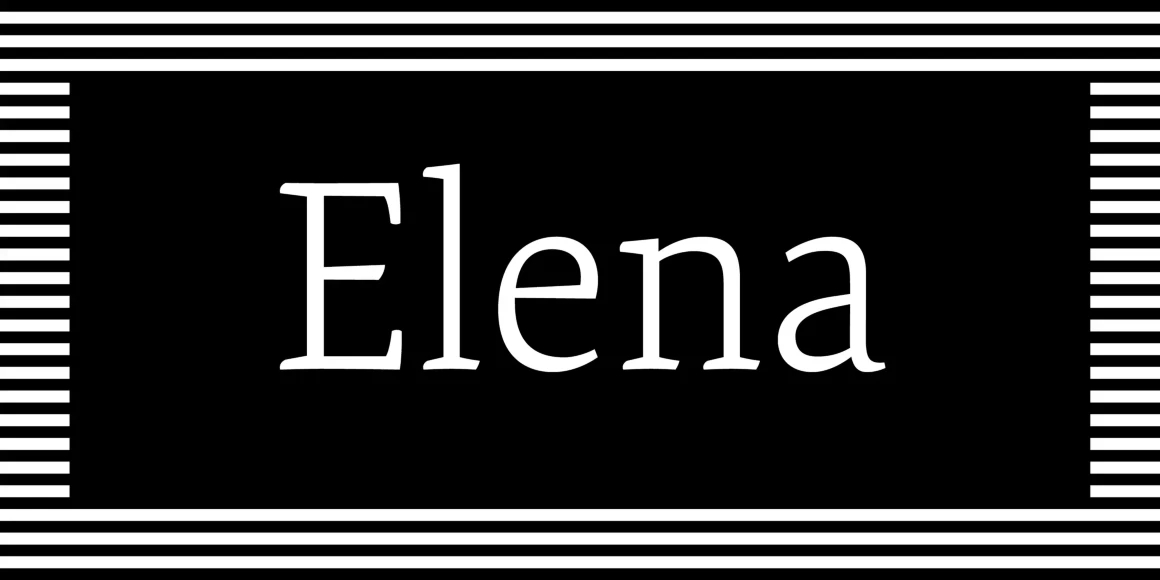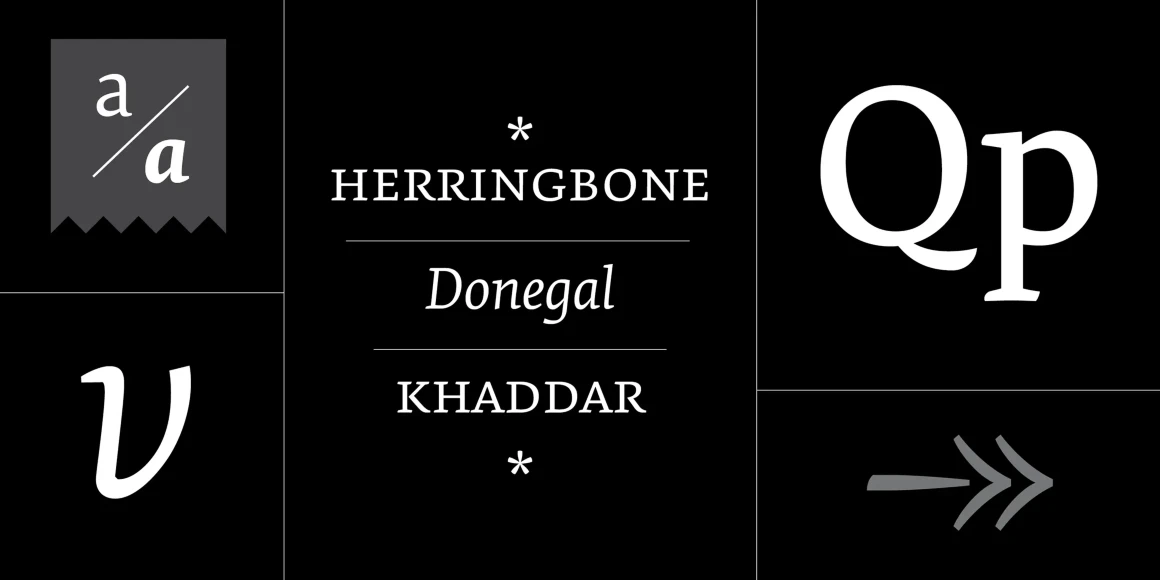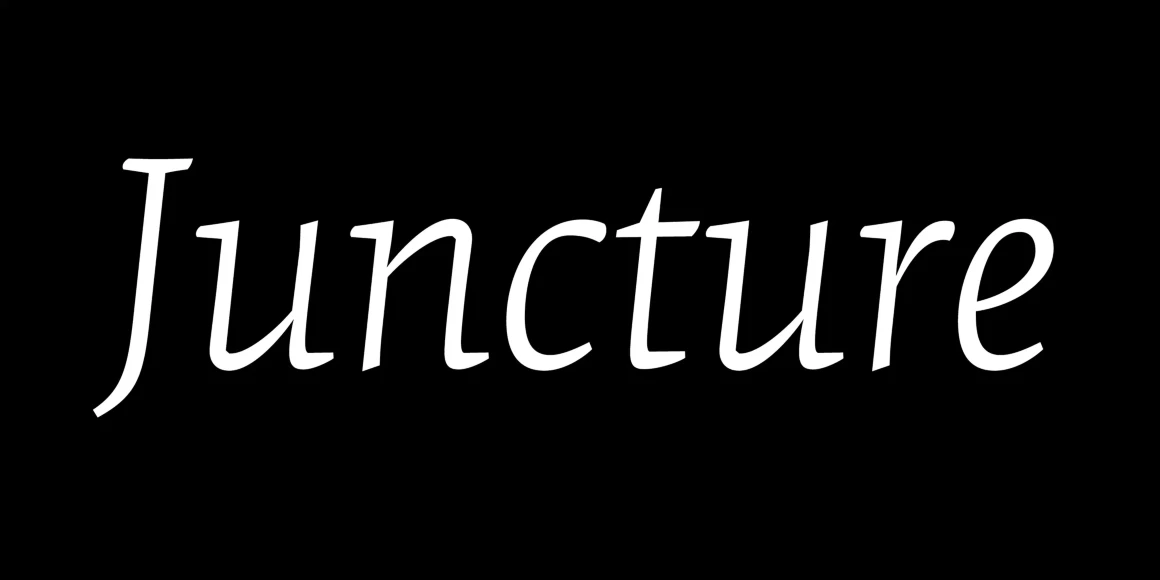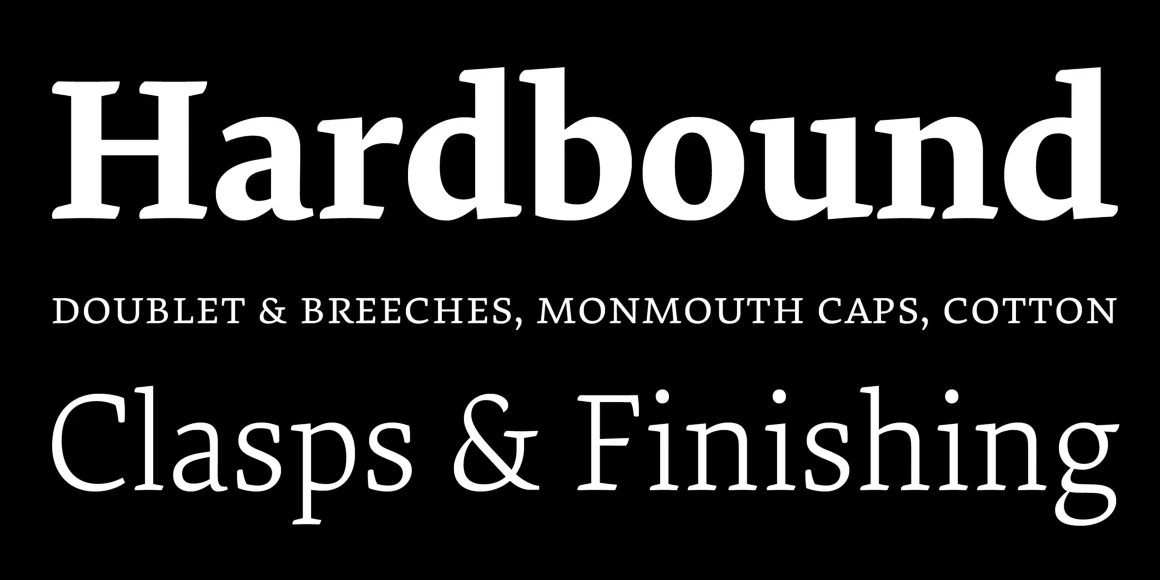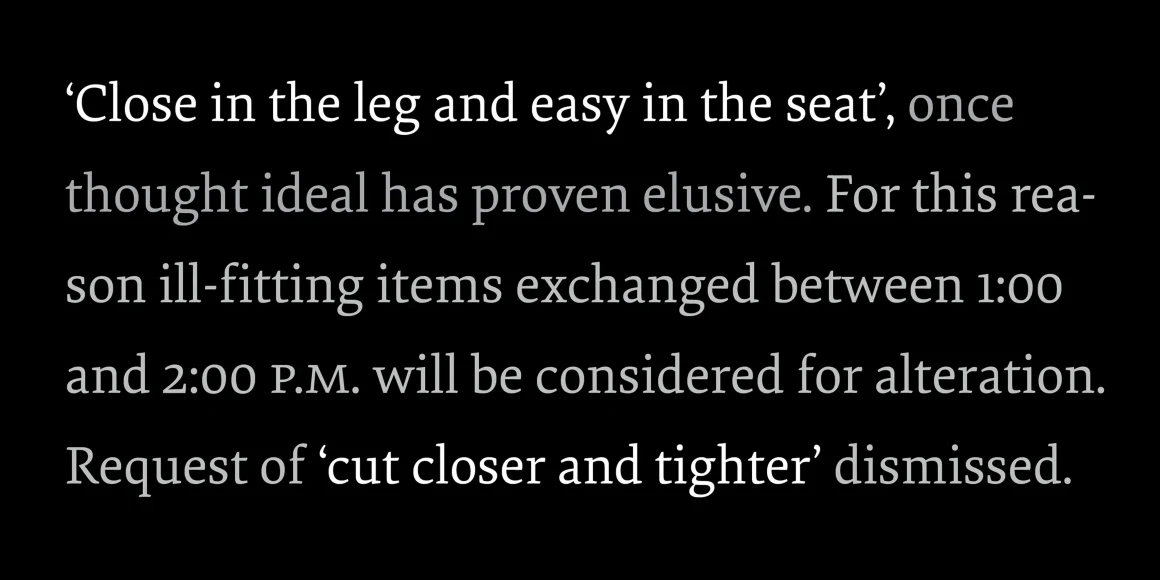
Elena is a crisp, modern serif typeface. Designed for extended reading and medium-sized display copy, it avoids the stuffiness of historical text faces and doesn’t overreach when it comes to contemporary detailing. It’s a balanced, low-contrast typeface with economic proportions and works well in print or on screen. OpenType features include smalls caps, case-sensitive glyphs, old style & tabular numerals, and stylistic alternates.